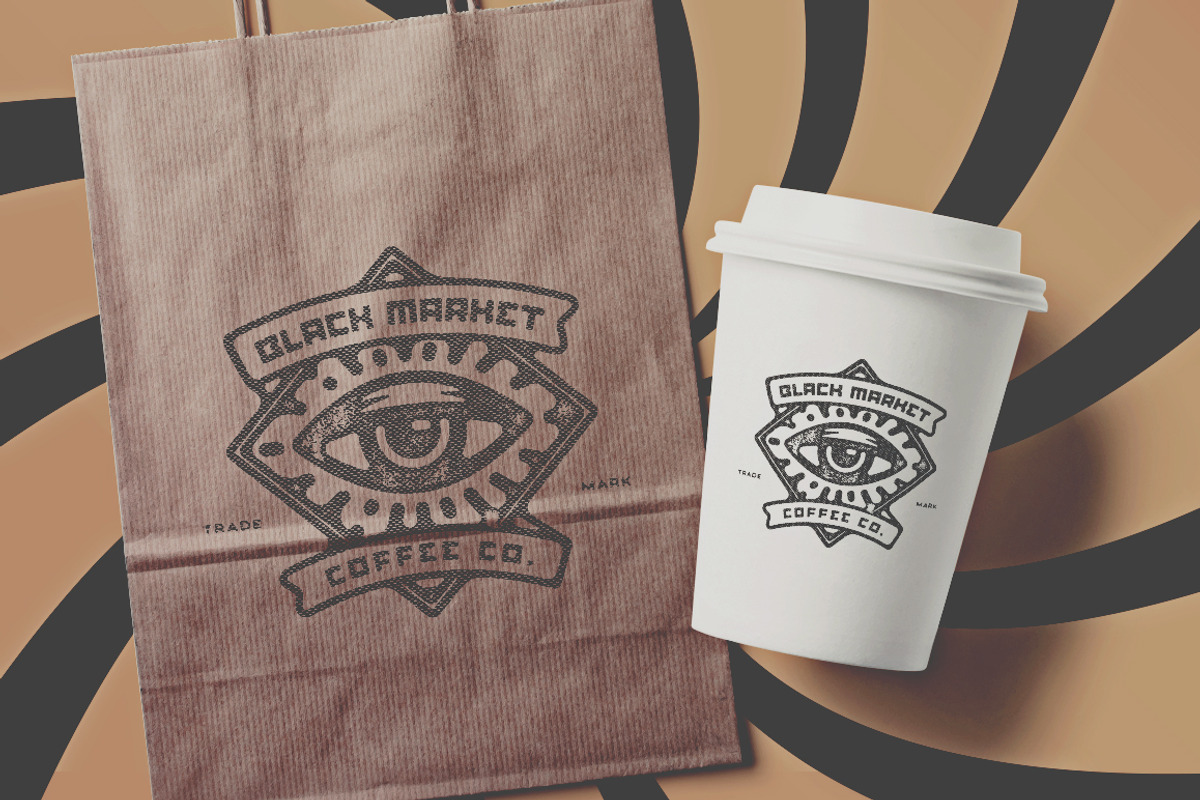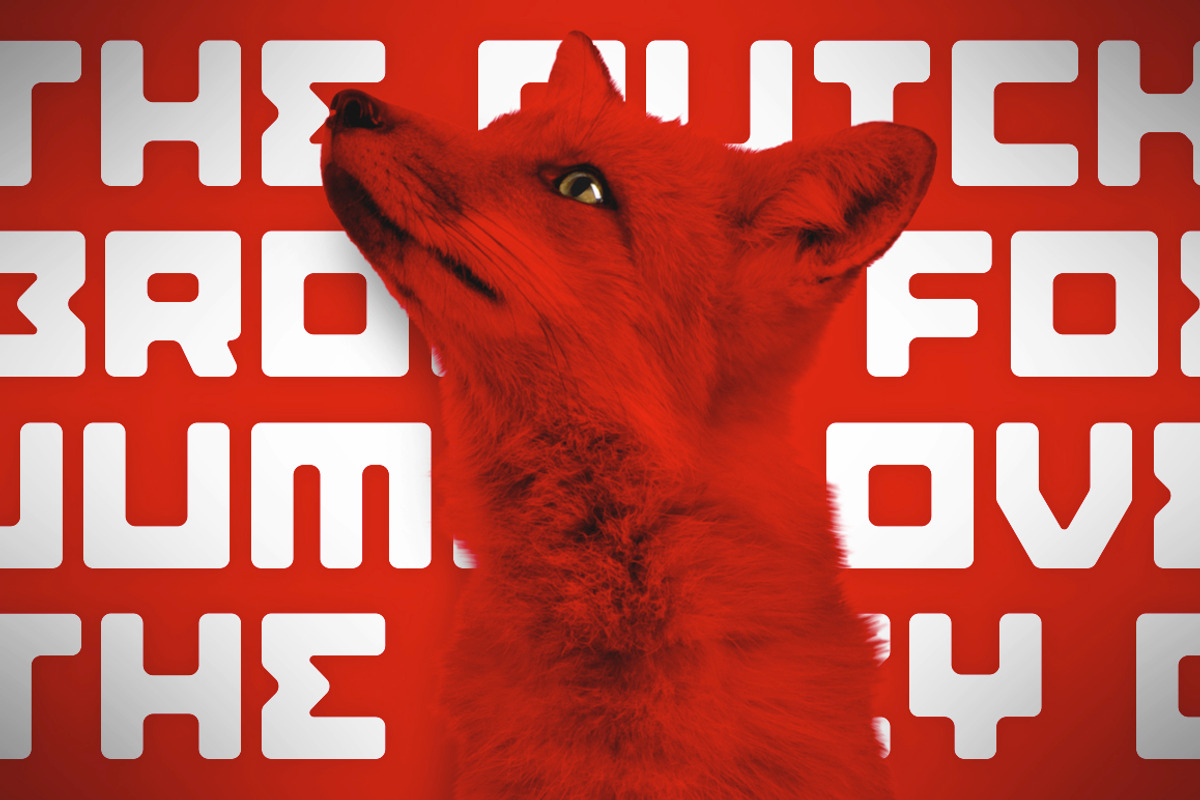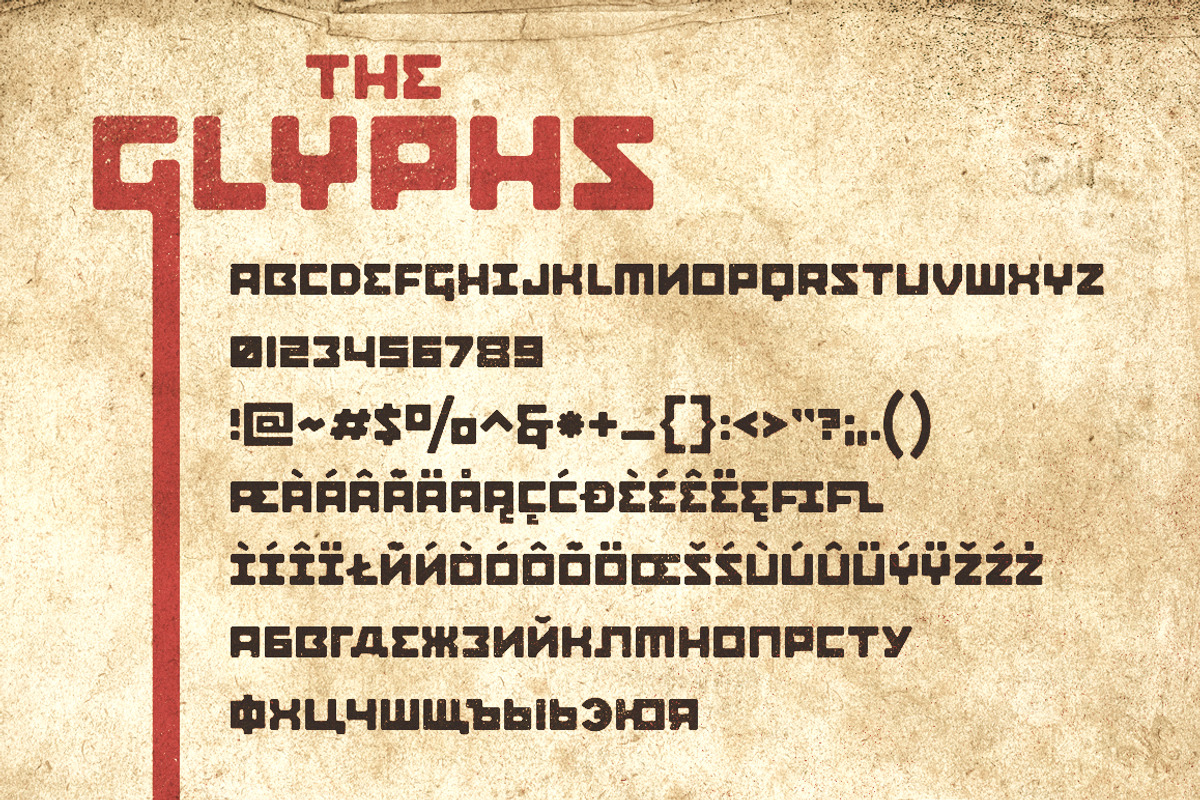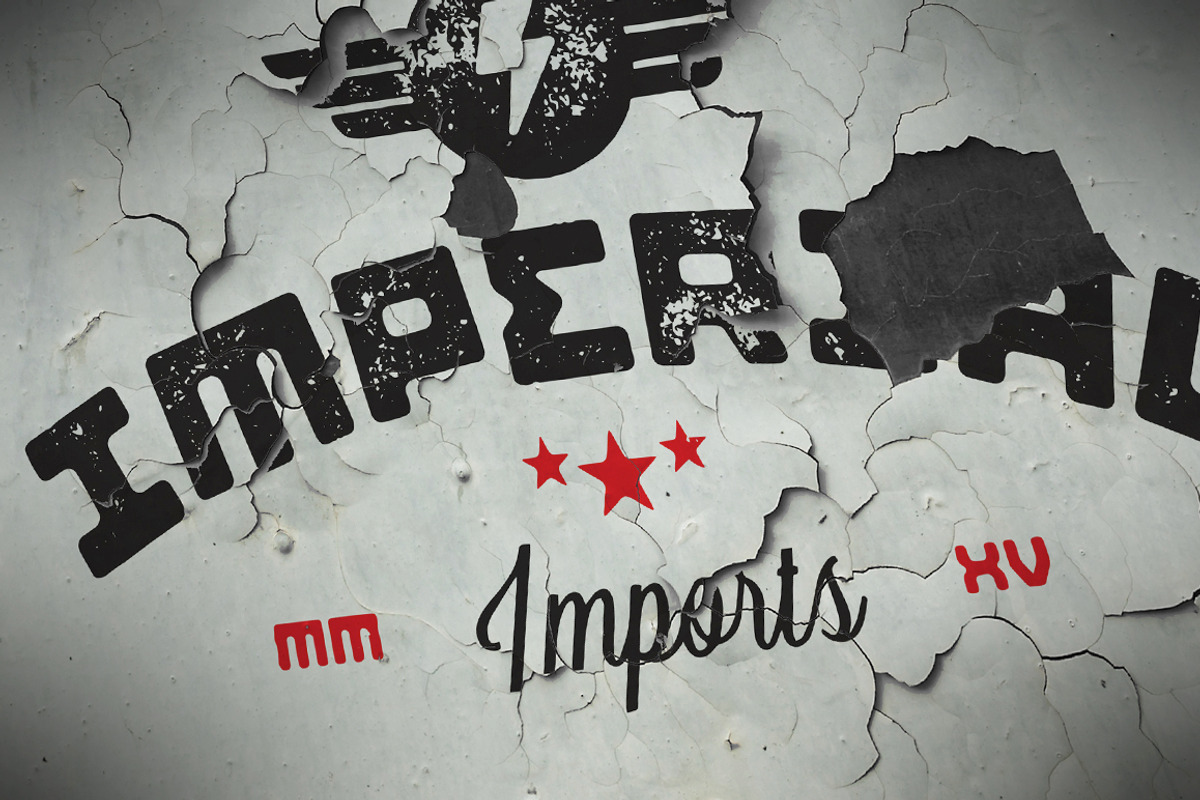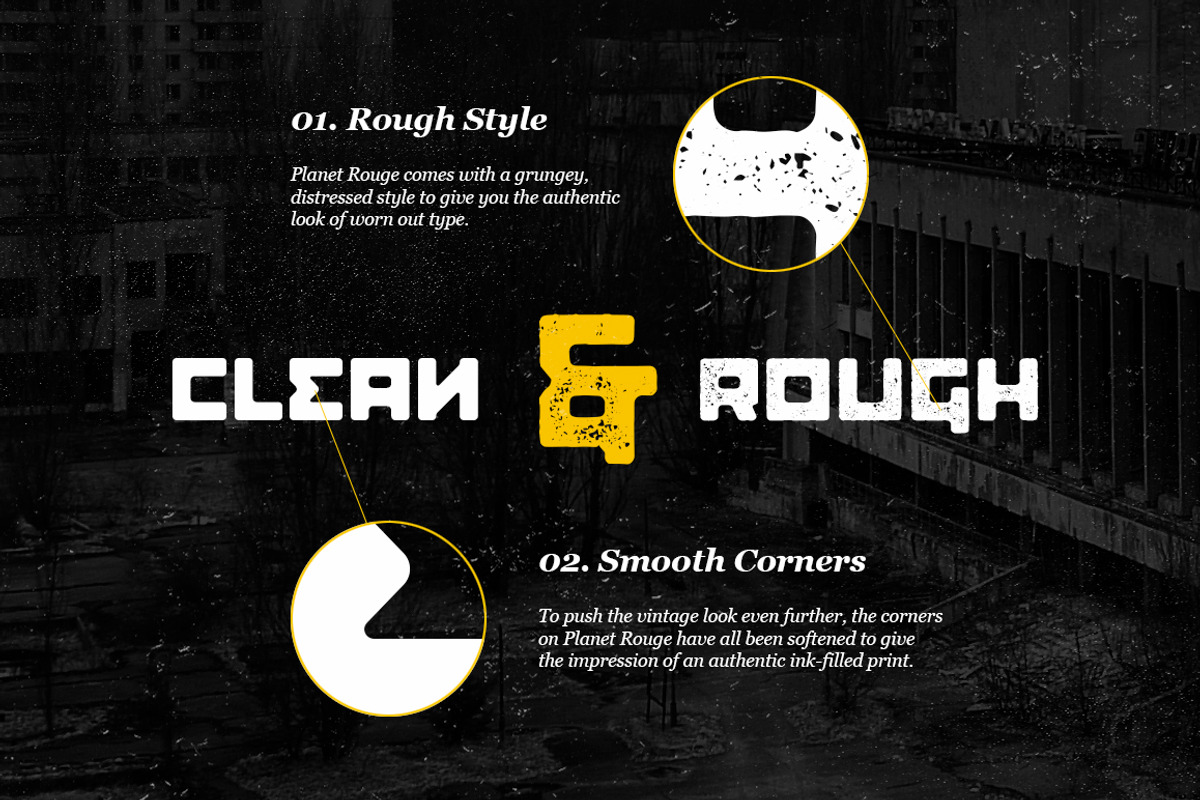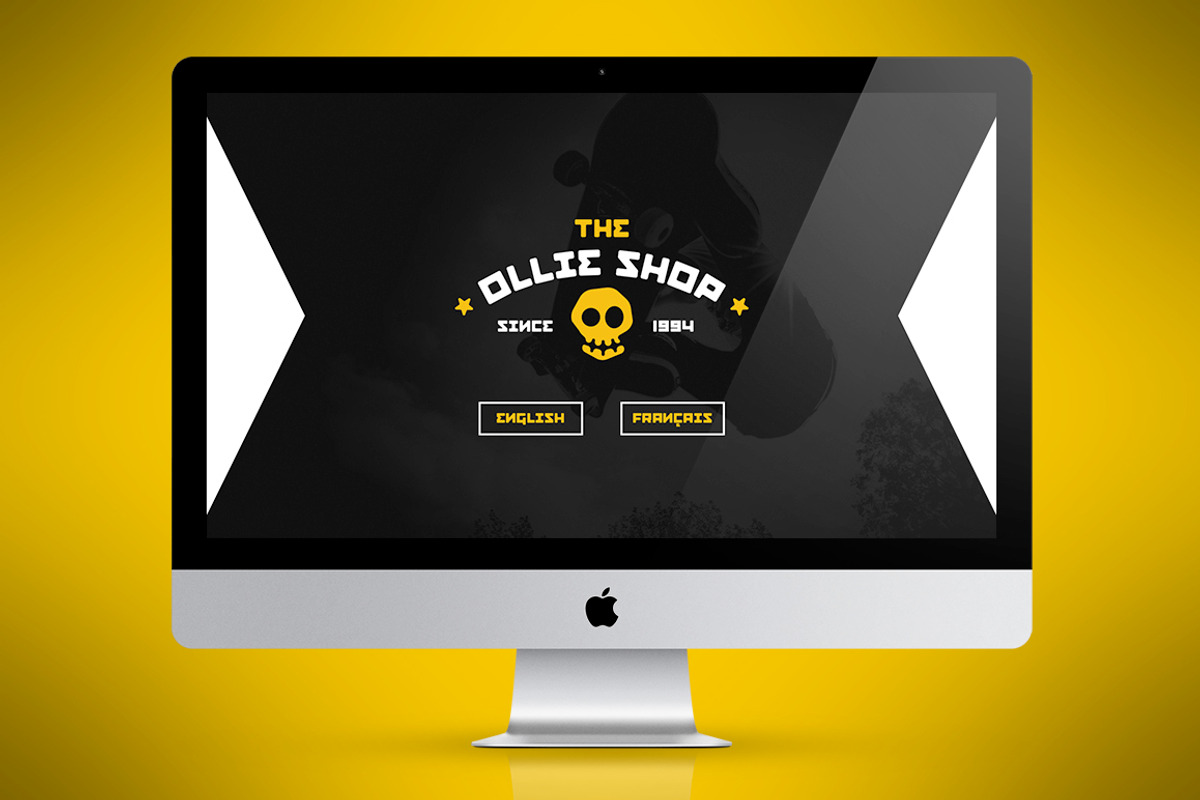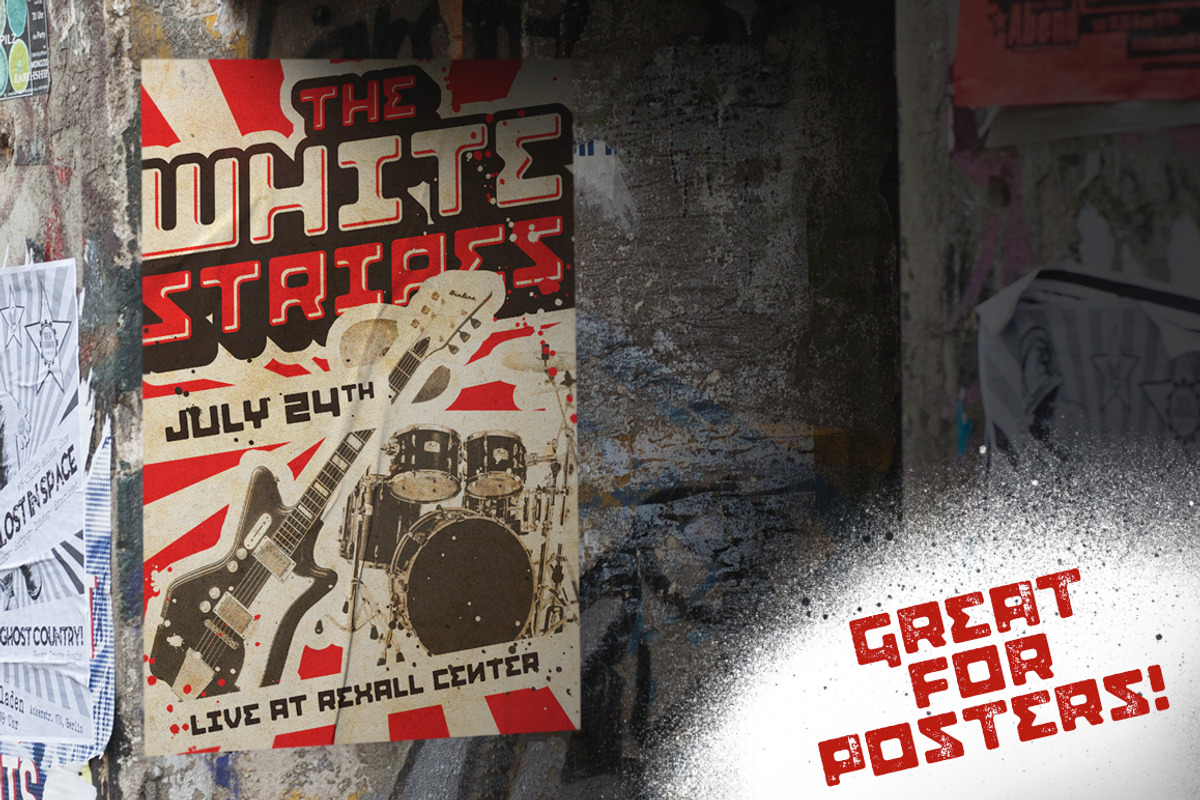
Planet Rouge Display Font
Planet Rouge Display Font by Vintage Type Company is a font selected for branding, posters, packaging, typography.
- Planet Rouge is a constructivist inspired display font that comes with a rough inked version, as well as multilingual support including basi
Planet Rouge Display Font by Vintage Type Company fits naturally into Branding, posters, packaging, typography.